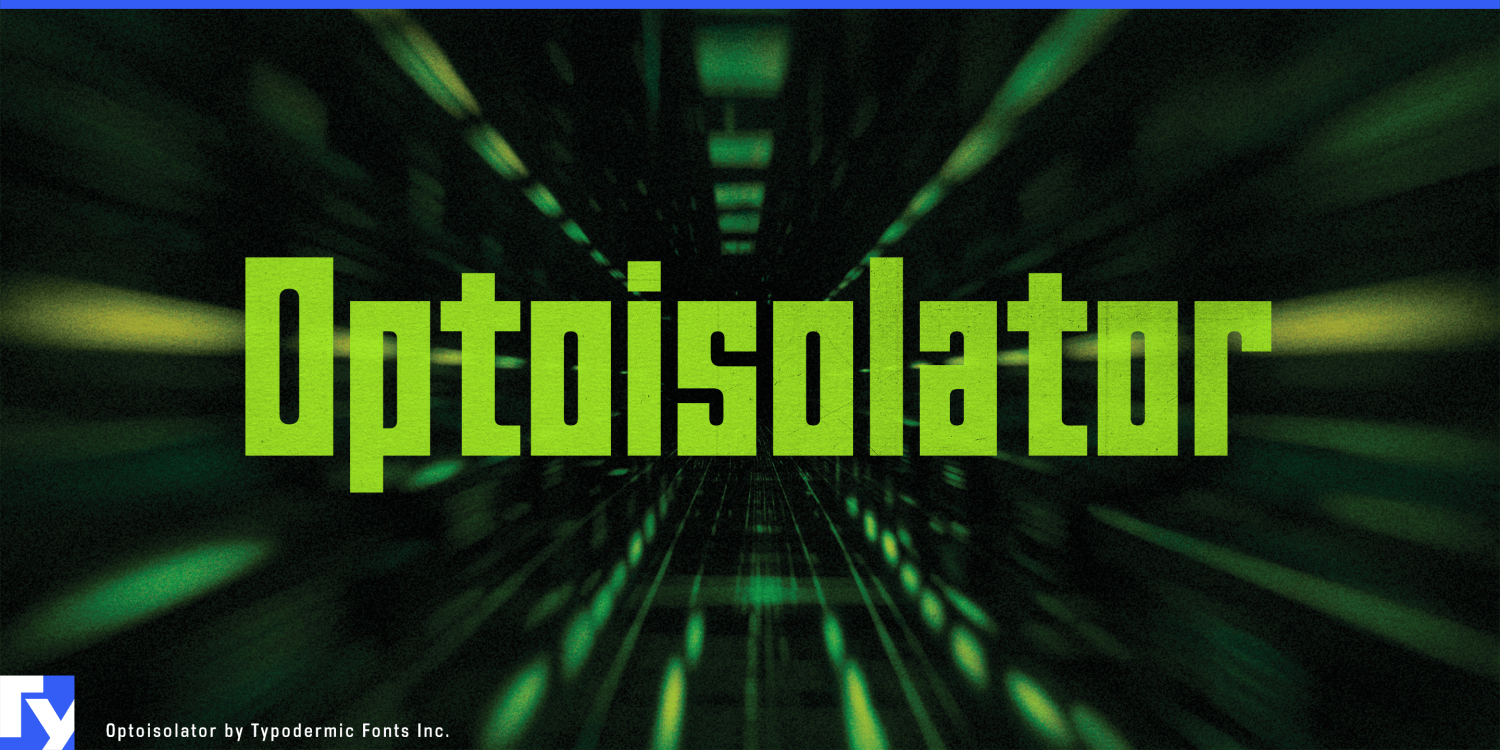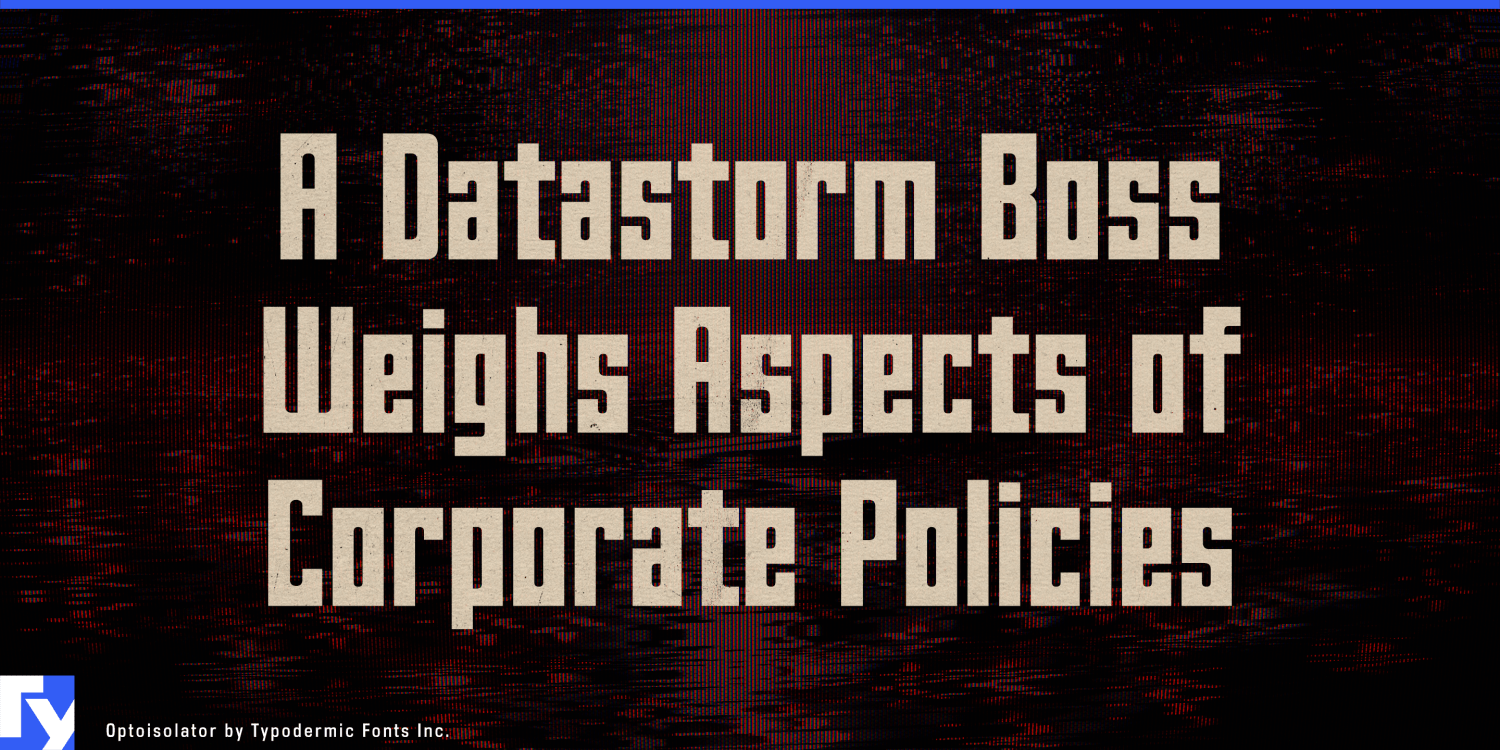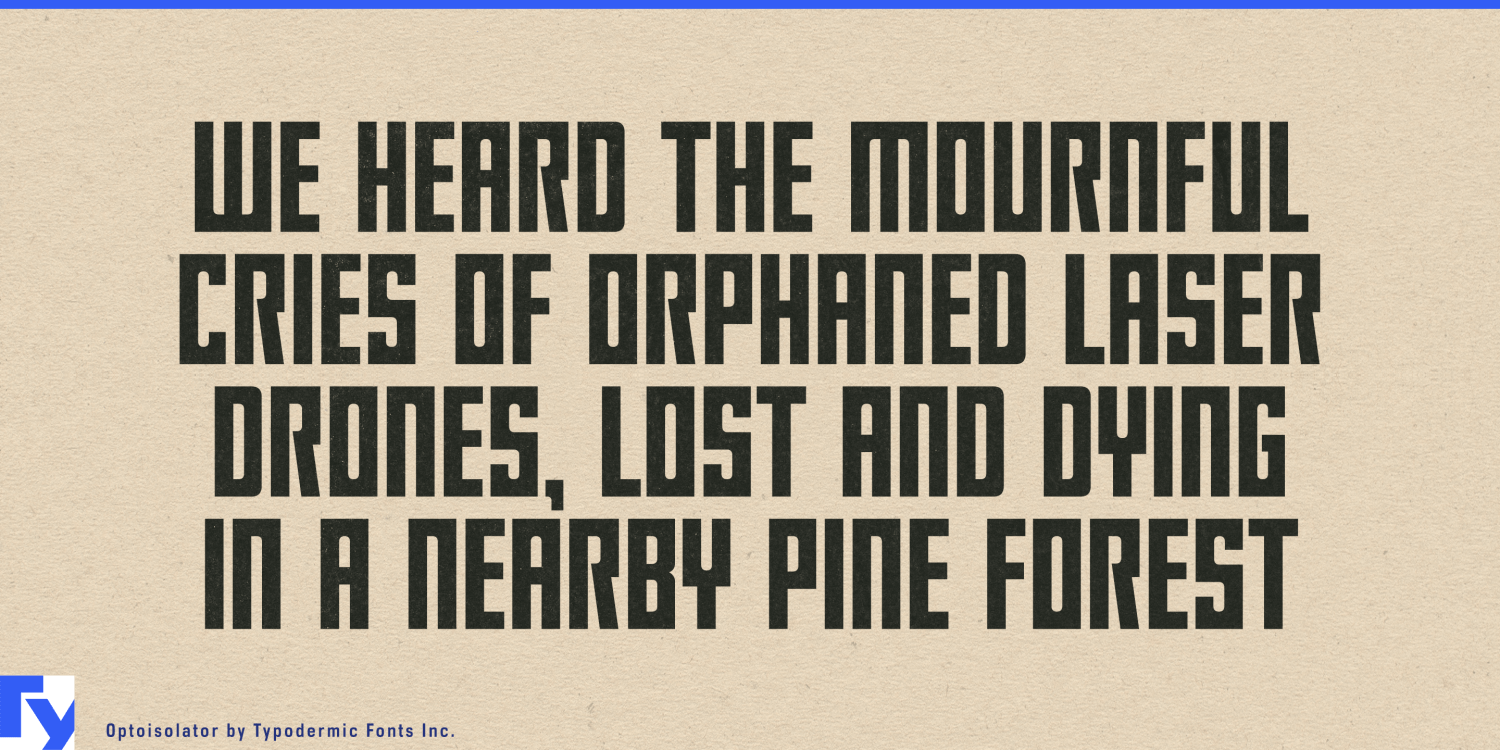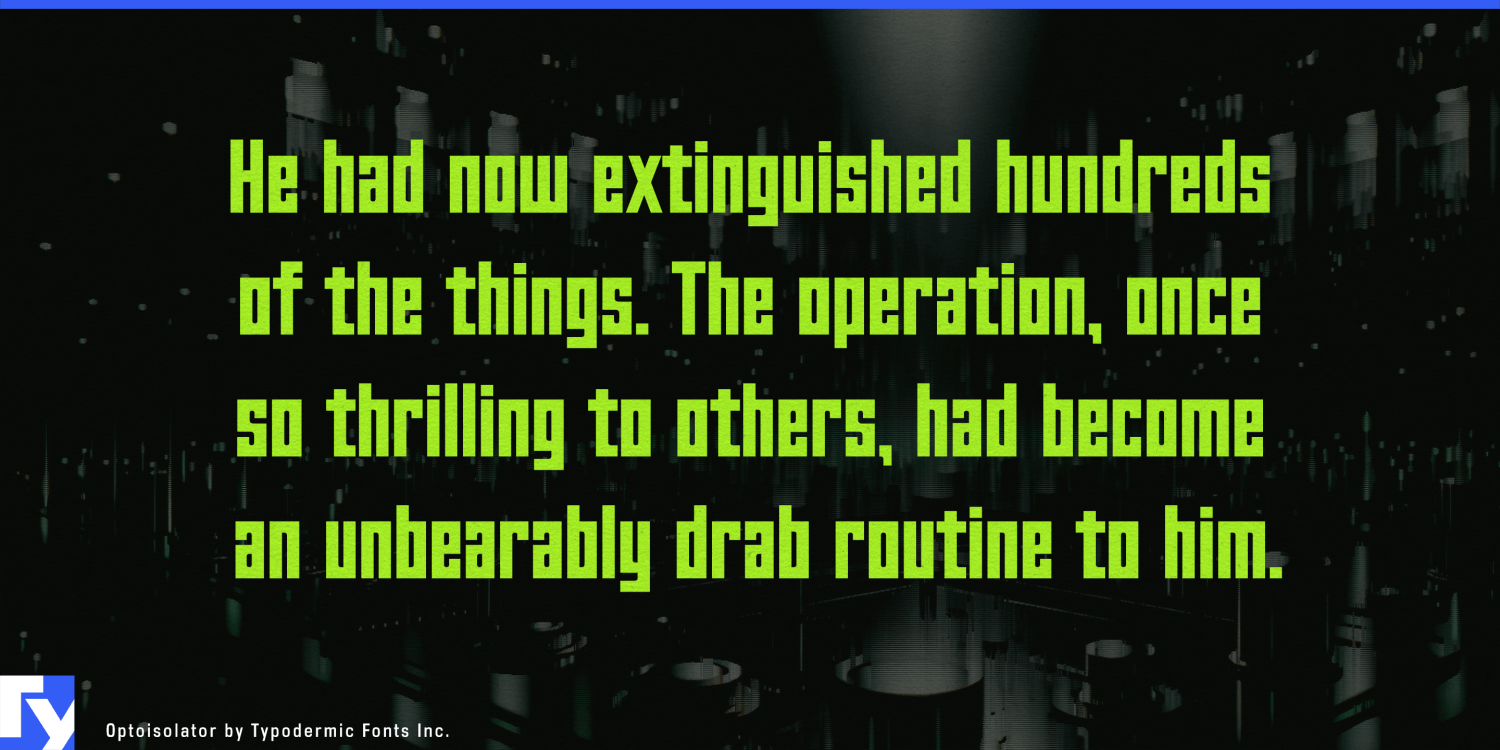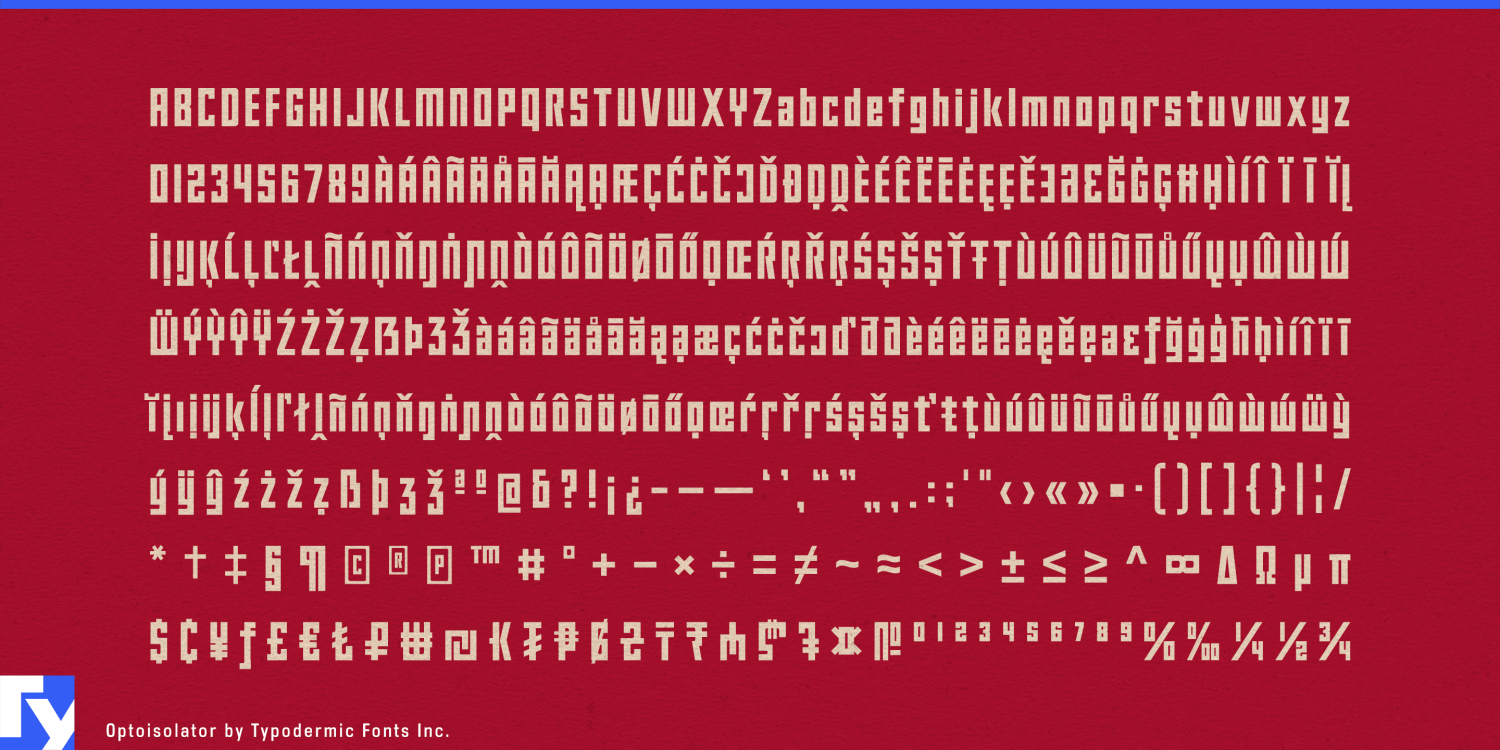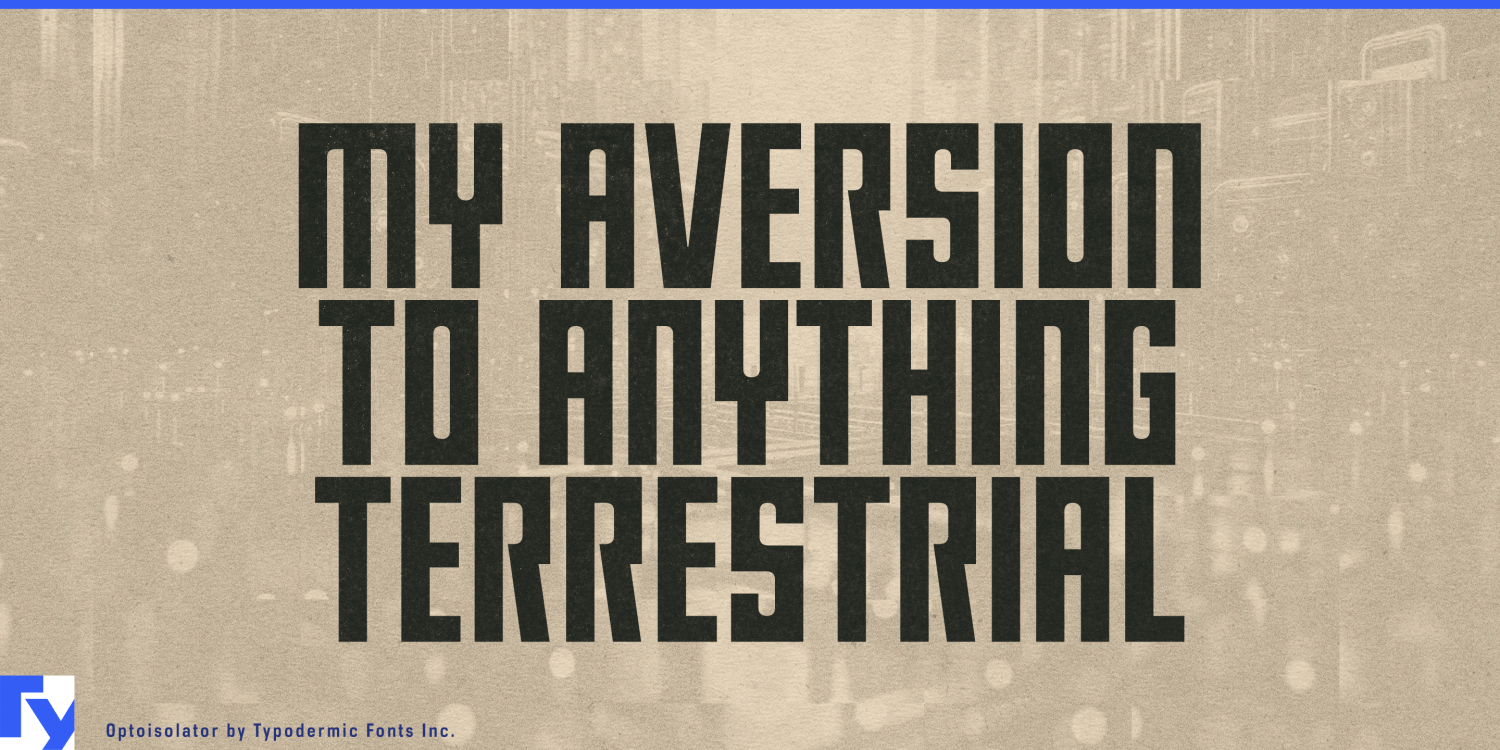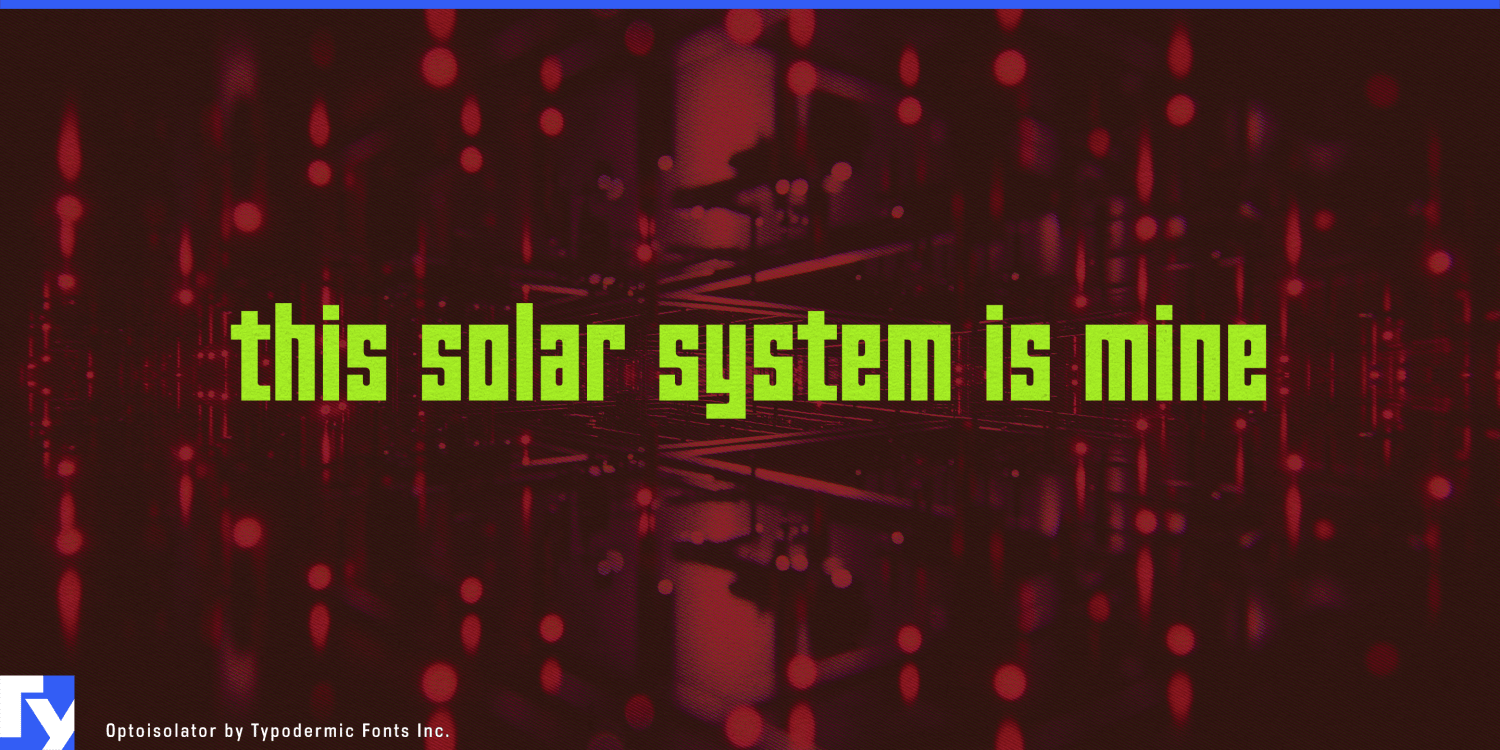
Optoisolator
Industrial products often need lettering that looks as if it belongs to the object rather than something applied after the engineering is finished. Optoisolator is built for that physical territory. Its condensed letters combine rigid rectangular exteriors with carefully rounded internal shapes, suggesting hard material that has been cut, punched or slotted around precise openings.
That construction is especially well suited to protective equipment. Camera cases, drone cases, tool cases, flight cases and transport boxes all pair tough shells with fitted interiors. Optoisolator can handle model names, equipment series and large case markings while its narrow proportions leave room for longer designations across lids and side panels.
The same geometry appears in ventilation grilles, louvers, perforated facade panels, machine guards and metal shutters. HVAC product families, architectural hardware, fabrication companies and construction-product catalogues can use Optoisolator’s narrow counters and repeated vertical forms to echo the slots and openings of the products themselves.
Workshop storage provides another natural setting. Tool cabinets, modular drawers, carts, shelving and parts organizers divide rigid structures into repeated compartments; product-series names, cabinet markings and workshop graphics benefit from the same ordered density. At a larger scale, loading bays, warehouse zones and storage sections can use Optoisolator to fit substantial identifiers into long, shallow spaces.
Rackmount electronics extend the idea into technology without turning it into generic sci-fi styling. Audio processors, network appliances, power conditioners, industrial controllers and test equipment all present narrow front panels where a model name has limited room to spread out. Optoisolator works best for those emphatic names, series labels and major headings, leaving fine specifications and operational text to a quieter companion face.
Optoisolator is a display typeface for hard shells, precise openings and constrained spaces; rugged cases, ventilation products, workshop hardware, warehouse graphics and rack equipment all give its square outer geometry and rounded interiors a physical reason to be there.